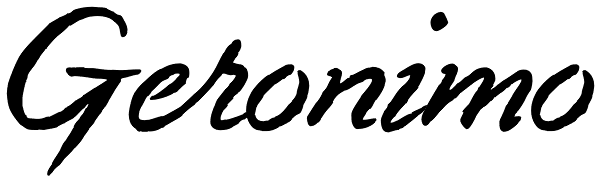
Geronimo
Geronimo is a rough poster script done in the spirit of brush calligraphy experiments conducted by American calligrapher and historian, Professor Alexander Nesbitt. This particular approach to brush script uses a pointed brush. Although Nesbitt...